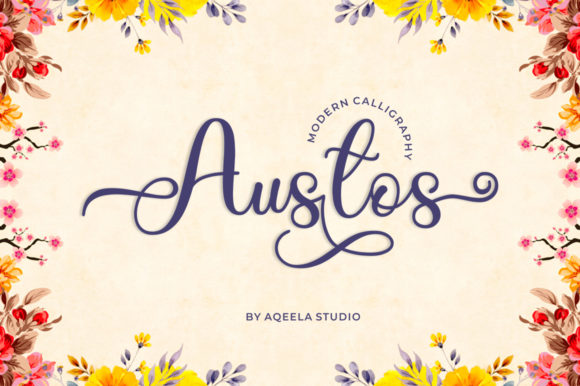
Austos Font: Elevate Your Designs with Elegant Modern Calligraphy
In the world of typography, few fonts manage to capture the essence of elegance and modernity as effectively as Austos Font. This stunning modern calligraphy font has been making waves among designers and crafters alike, and for good reason. Its unique charm lies in the way its characters seem to dance along the baseline, exuding an air of sophistication and refinement. Whether you’re working on a logo, wedding invitation, or any other design project, Austos Font is sure to elevate your work to new heights.
The Versatility of Austos Font
One of the standout features of Austos Font is its incredible versatility. This font isn’t just limited to one or two specific uses; rather, it can be employed for a wide range of purposes. Imagine being able to use a single font for everything from logos and wedding invitations to headings, t-shirts, letterheads, signage, labels, news, posters, badges, and more. With Austos Font, you can achieve a consistent and elegant look across all your design projects, which is especially useful for brands looking to establish a strong visual identity.
Perfect for Designers
For designers, having access to a font like Austos is a game-changer. It provides an effortless way to add a touch of class and sophistication to any project. Whether you’re working on a high-end branding campaign, a luxury product launch, or simply want to create something beautiful, Austos Font offers the perfect solution. Its modern calligraphy style is sure to capture attention and leave a lasting impression on your audience.
A Crafter’s Dream
Crafters also have a lot to gain from using Austos Font in their projects. Whether you’re creating handmade cards, personalized gifts, or unique decorations, this font can add that special something that sets your work apart. The elegant feel of Austos Font makes it ideal for projects that require a personal touch, such as wedding stationery, custom apparel, and home decor items.
Key Features of Austos Font
• Modern Calligraphy Style: Austos Font boasts a beautiful, modern calligraphy style that adds an elegant touch to any design.
• Elegant Character Movement: The way characters dance along the baseline gives Austos Font its unique and sophisticated feel.
• High Versatility: Use Austos Font for a wide range of projects, from logos and invitations to signage and more.
• Easy to Read: Despite its elegant and flowing design, Austos Font remains clear and easy to read, making it suitable for both headings and body text.
How to Use Austos Font Effectively
To get the most out of Austos Font, consider the following tips:
• Pair with Complementary Fonts: For maximum impact, pair Austos Font with simpler, sans-serif fonts for body text or other design elements.
• Experiment with Colors: While Austos Font looks stunning in black or dark colors, don’t be afraid to experiment with metallic or pastel shades to match your brand or project’s aesthetic.
• Consider Size and Weight: Play around with different sizes and weights of Austos Font to create visual hierarchy and emphasize key messages.
Austos Font is more than just a font; it’s a design tool that can transform your projects with its elegant modern calligraphy style. Its versatility, readability, and stunning appearance make it an excellent choice for designers and crafters looking to add a touch of sophistication to their work. Whether you’re creating professional designs or personal projects, Austos Font is sure to inspire and elevate your creations.